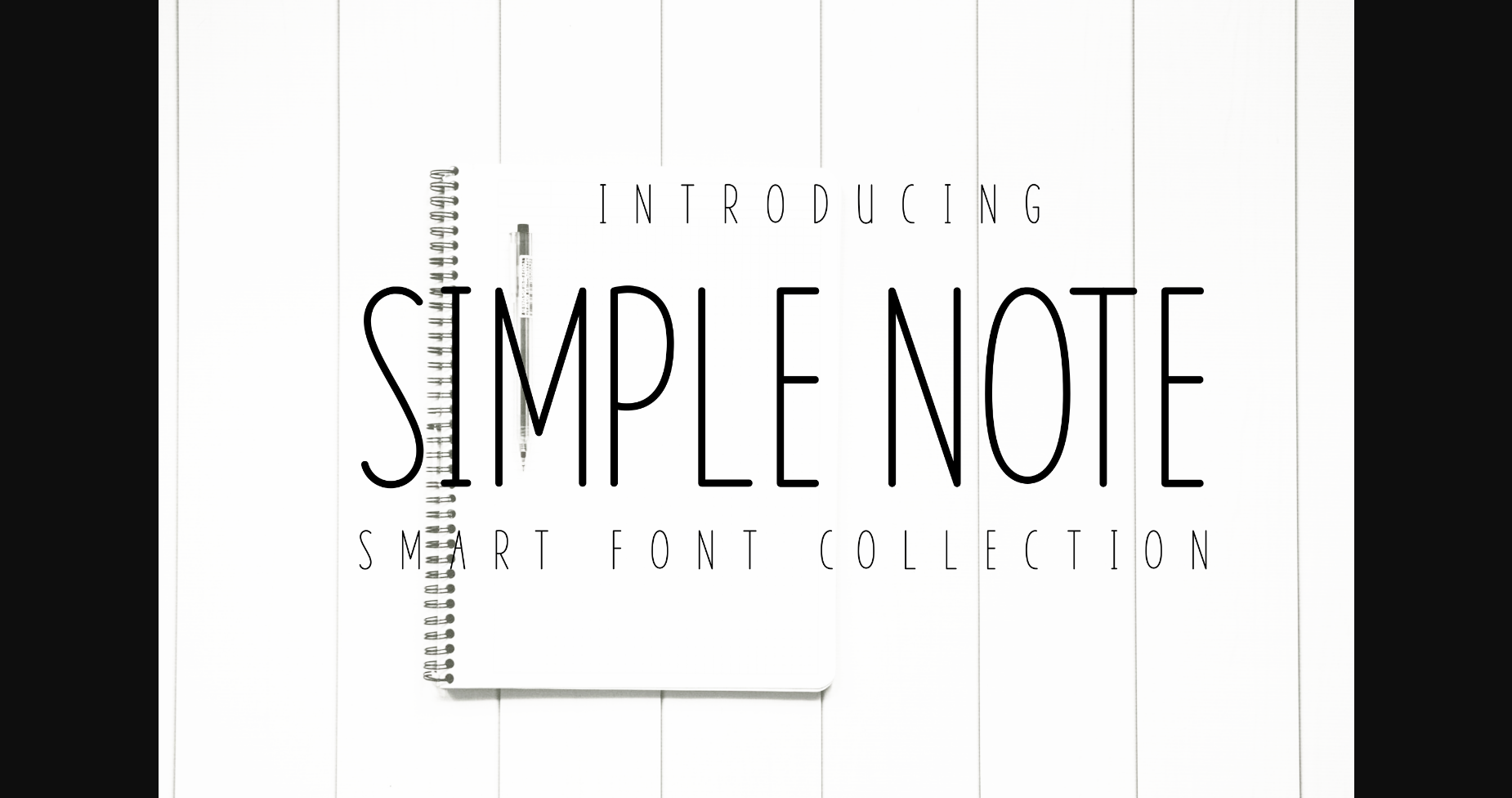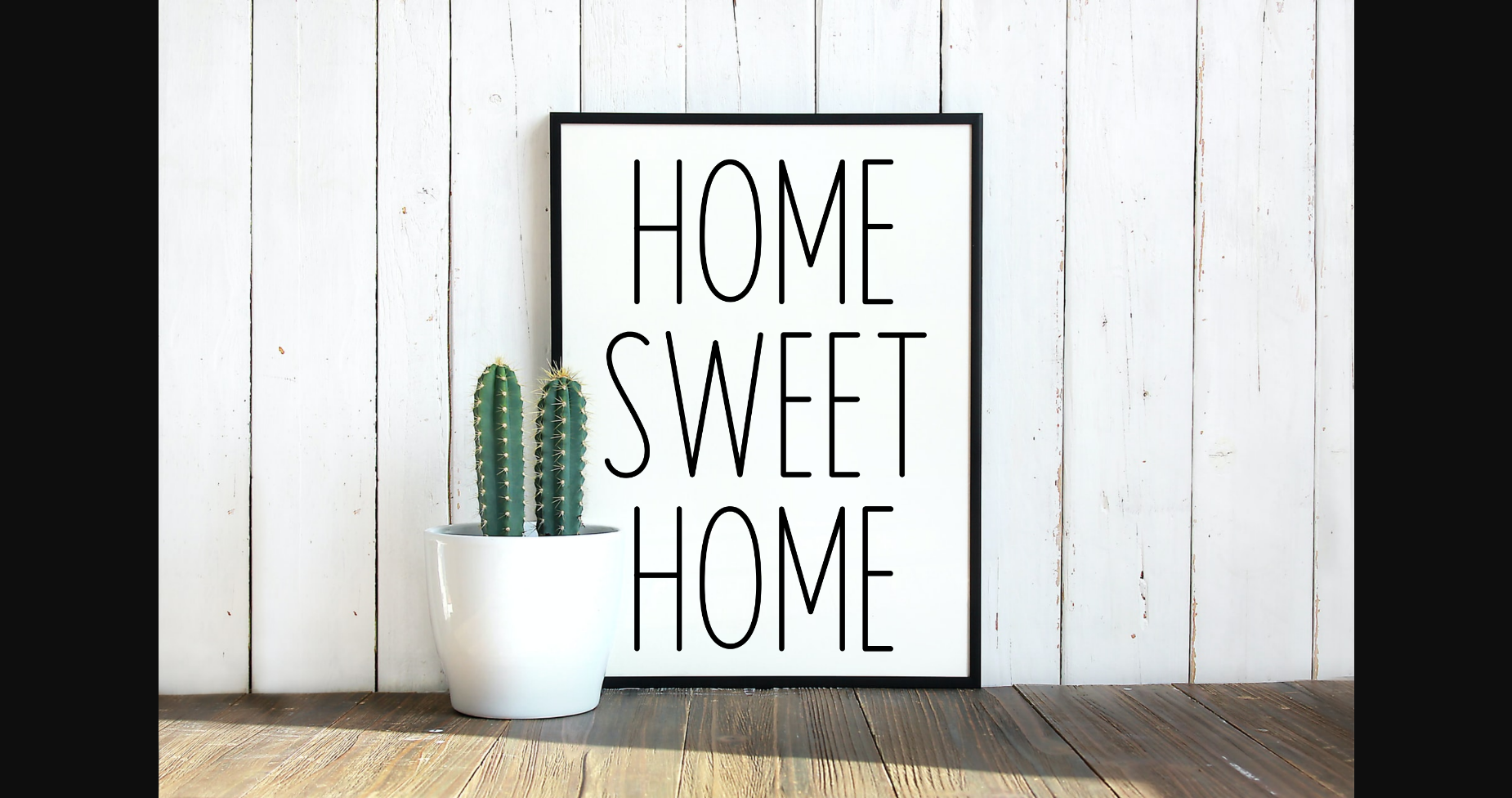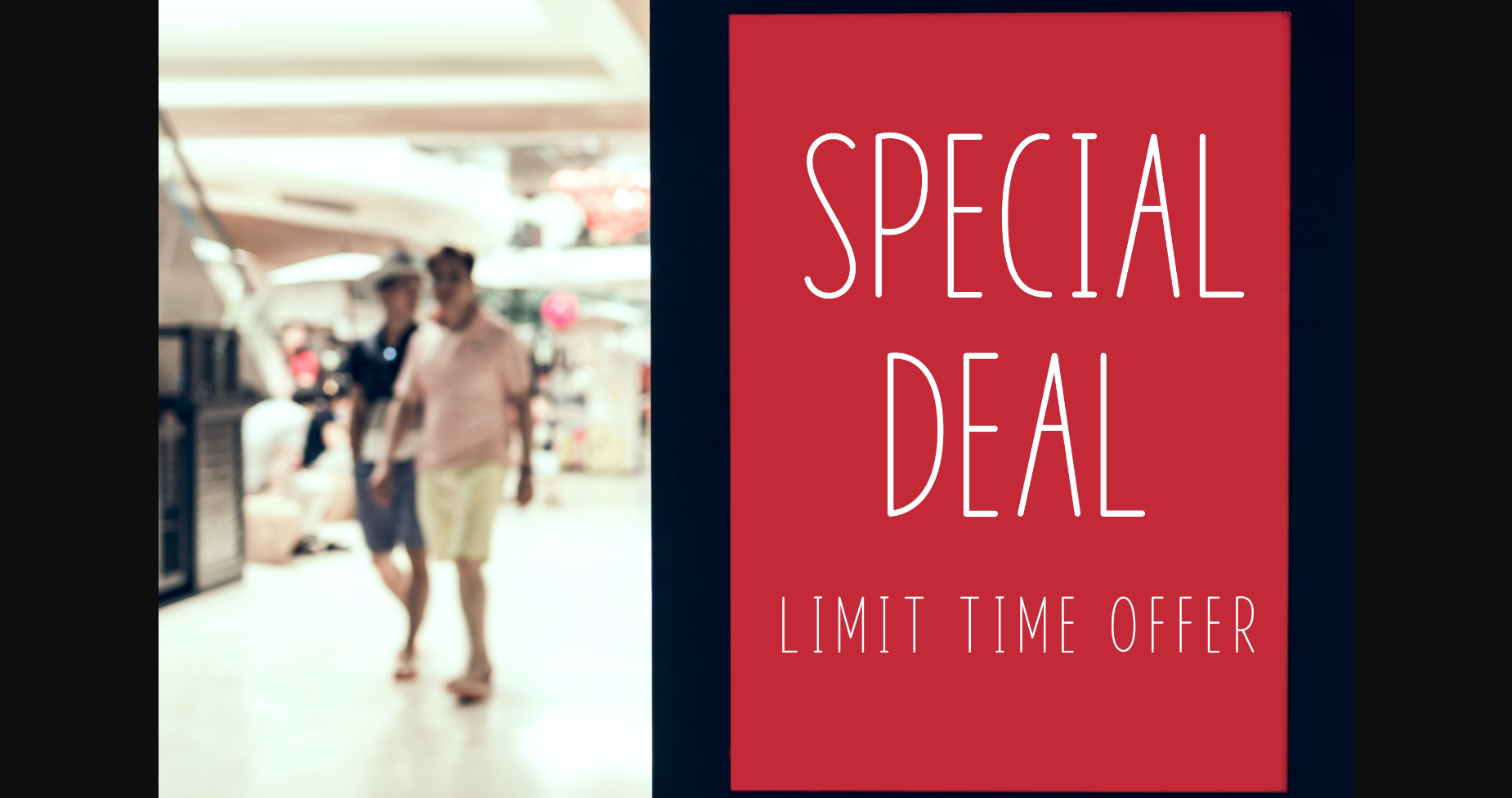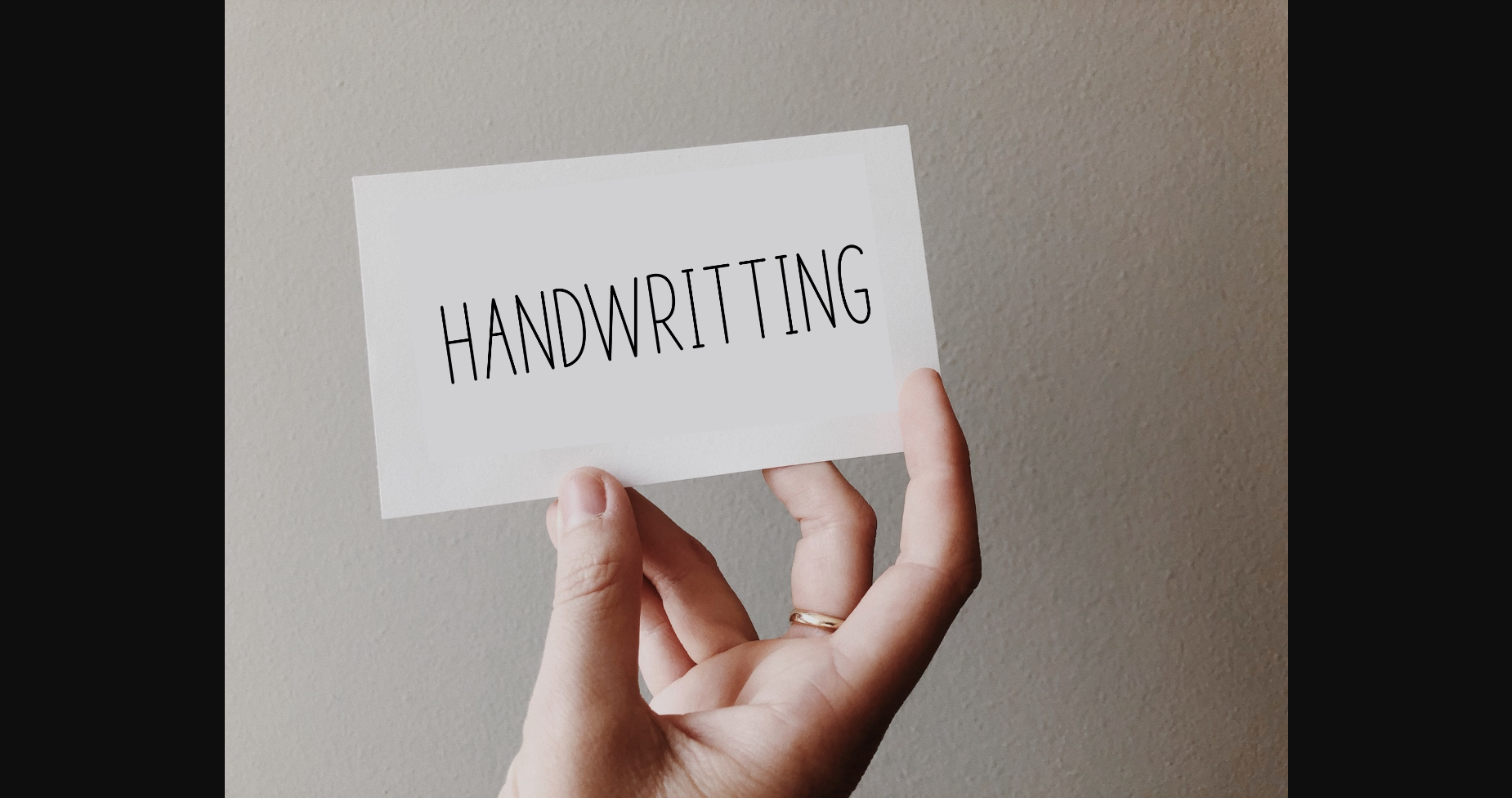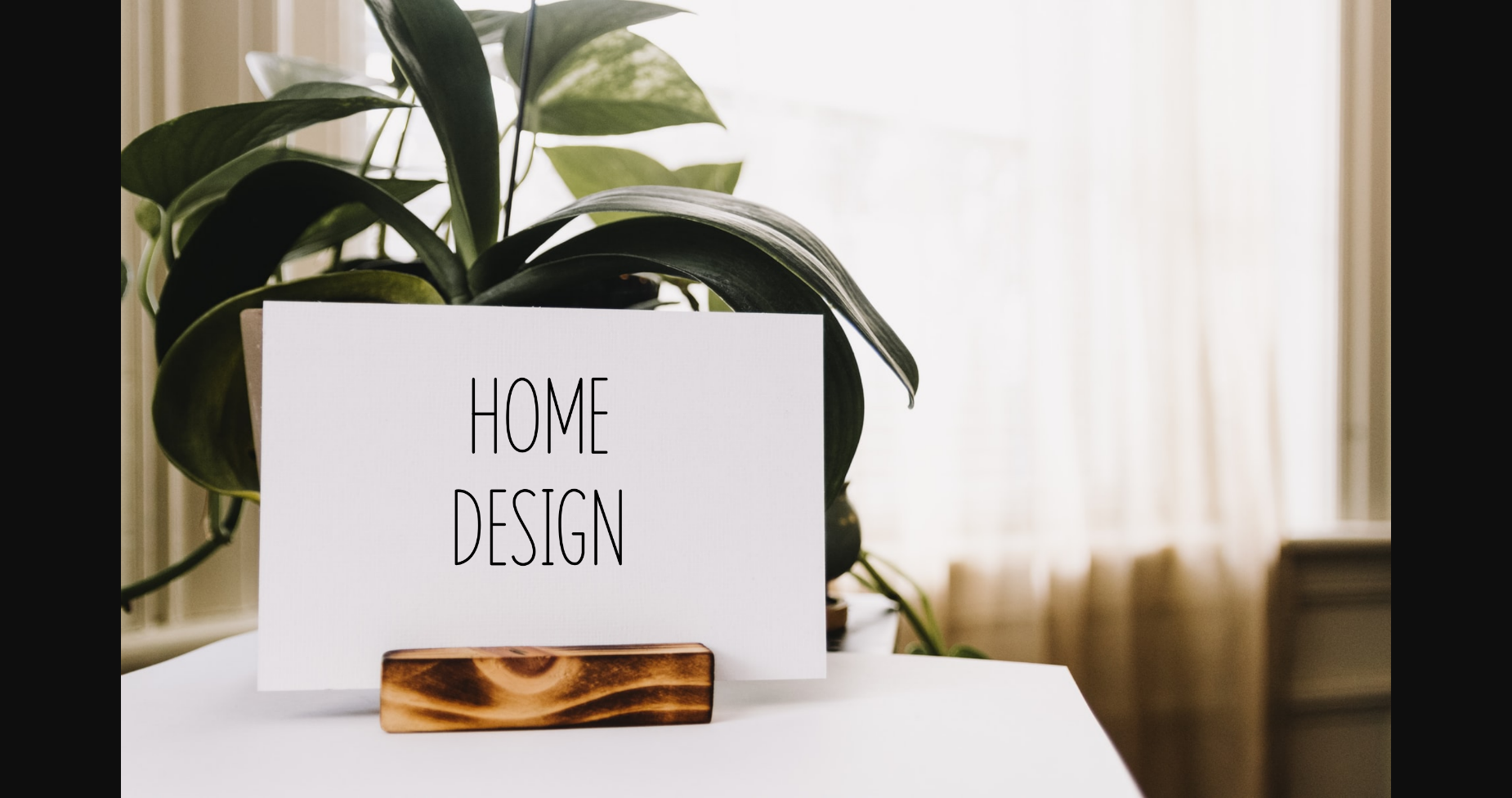
HomeSans Serif FontsSimple Note Font Sans Serif Fonts Simple Note Font FacebookXPinterestWhatsApp 1 of 7 ... Simple Note Font Poster 2... Simple Note Font Poster 3... Simple Note Font Poster 4... Simple Note Font Poster 5... Simple Note Font Poster 6... Simple Note Font Poster 7... About Simple Note Font Simple Note is a thin and tall sans serif font. It can easily be matched to an incredibly large set of projects, so add it to your creative ideas and notice how it makes them stand out! DOWNLOAD NOW People also explored Kalina Font Welcome Holiday Duo Font Calabour Font Karl Geoff Font Adige Font Alssential Font Olivier Font Light Shade Font Strong Display Sans Family Font 262 0 TagsSimple Note Font Previous articleRachelya FontNext articleHardtown Font LEAVE A REPLY Cancel reply Comment: Please enter your comment! Name:* Please enter your name here Email:* You have entered an incorrect email address! Please enter your email address here Website: Save my name, email, and website in this browser for the next time I comment. Personal Use Free Madison Script Personal Use Free Read more about this font Mellgatha Personal Use Free Read more about this font Boston Traffic Personal Use Free Read more about this font Almonte Personal Use Free Read more about this font BLOG Free Fonts Risk: Why Free Fonts Can Be Dangerous for Designers Free Fonts Risk: Why Free Fonts Can Be Dangerous for Designers Using free fonts is a common practice in web and graphic design. However, the... How to Cut Any Font on Cricut: Convert a Font to SVG (Free) Transform Your Website: Elevate Your Typography with 7 Best Web Font Generators Top 10 Handwritten Fonts That Elevate Your Designs